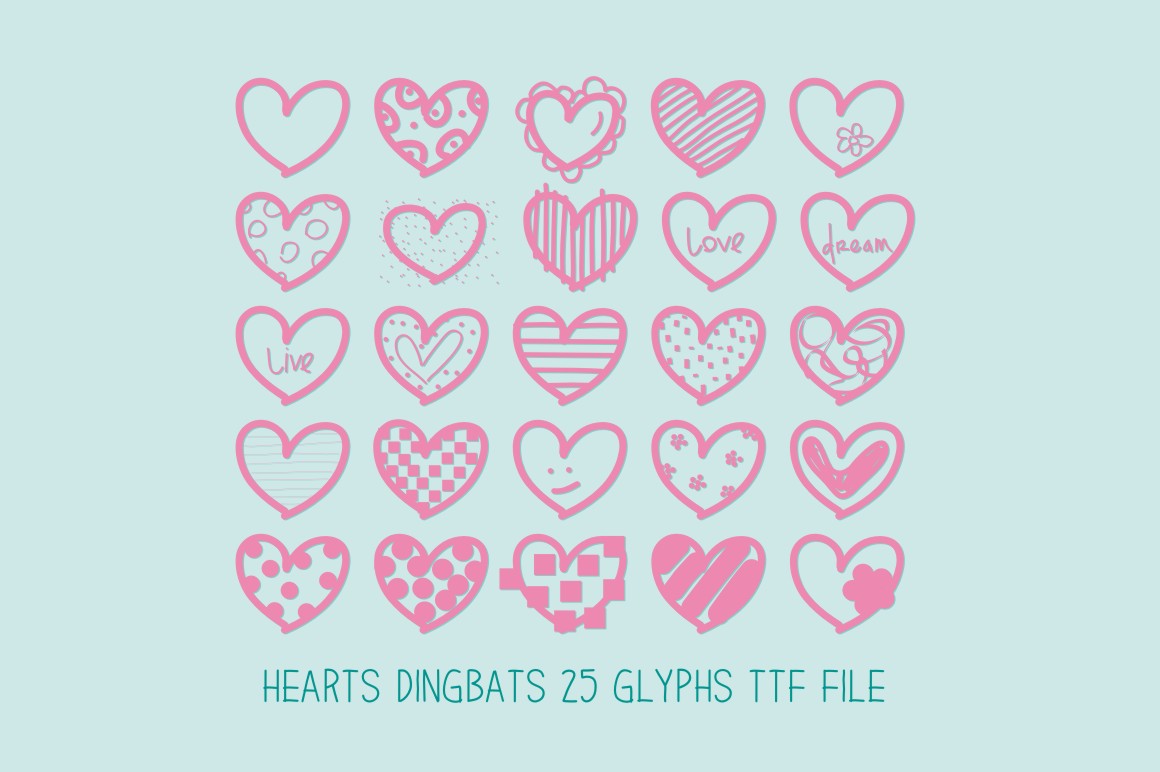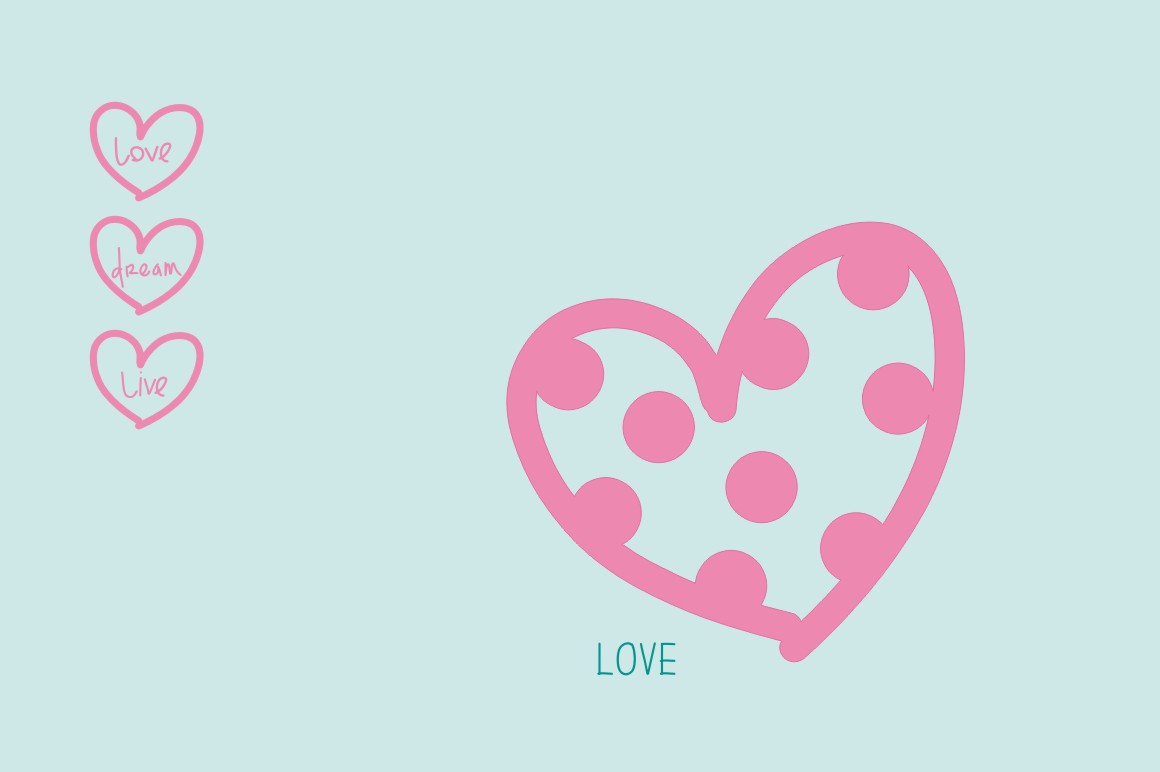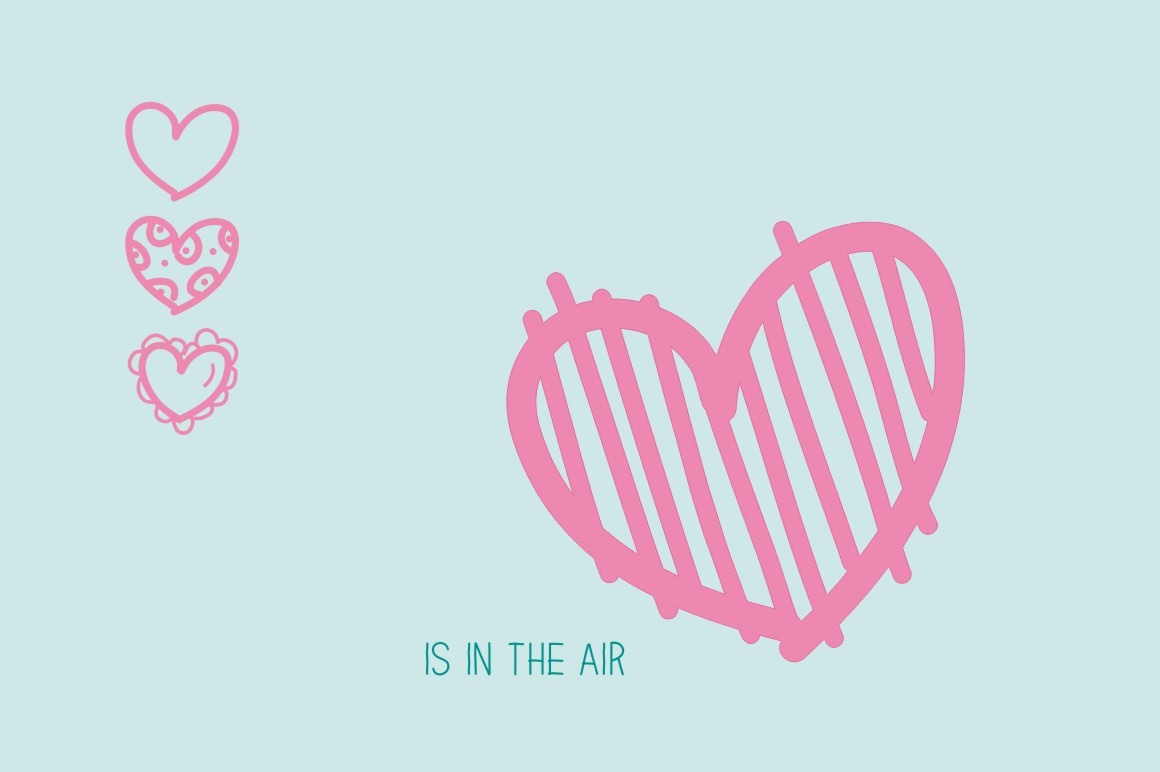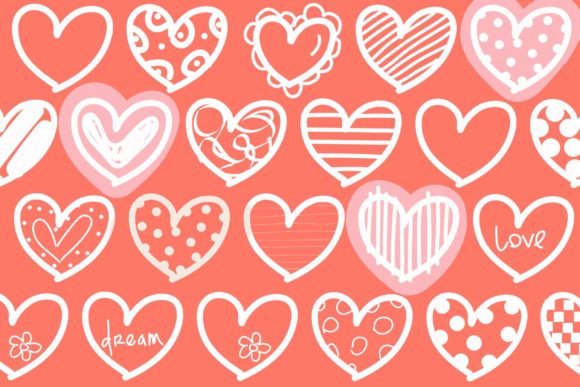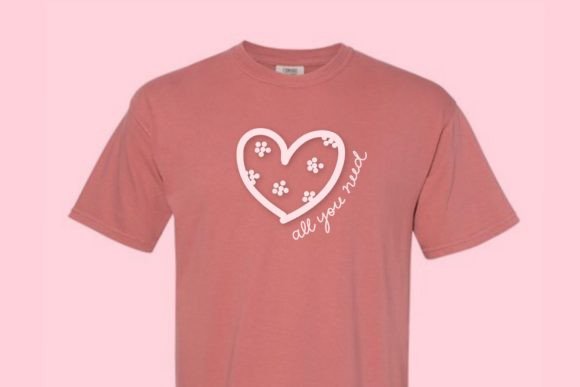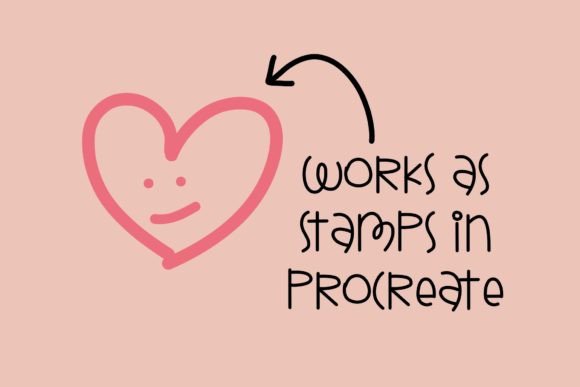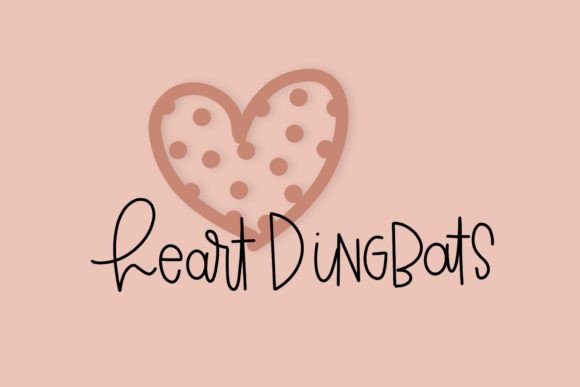
in Dingbats FontsHearts Dingbats Font 91 Views View Gallery 7 images About Hearts Dingbats FontBeautiful Heart shape dingbats.DOWNLOAD NOW Hearts Dingbats Font Written by canyonadmin Leave a Reply Cancel replyYour email address will not be published. Required fields are marked *Comment *Name * Email * Website Save my name, email, and website in this browser for the next time I comment.